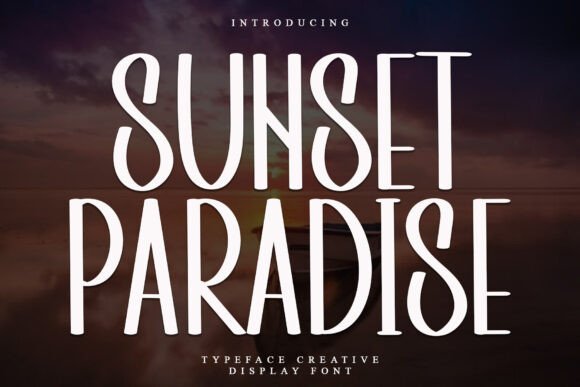
Introducing Sunset Paradise Font: The Ultimate Holiday Typeface
The holiday season is upon us, and what better way to get into the spirit than with a festive and happy typeface that captures the essence of this joyous time of year? Look no further than Sunset Paradise Font, a decorative and unique font that adds a touch of charm to your designs. In this article, we’ll dive into the world of Sunset Paradise Font and explore its features, benefits, and uses.
What is Sunset Paradise Font?
Sunset Paradise Font is a specially designed typeface that embodies the festive and happy atmosphere of the holiday season. With its decorative elements and unique flair, this font is perfect for adding a touch of nostalgia and cheer to your designs. Whether you’re creating greeting cards, gift labels, or holiday-themed projects, Sunset Paradise Font is the ideal choice.
Key Features of Sunset Paradise Font
- Decorative Elements: Sunset Paradise Font features intricate and decorative elements that give it a unique and festive look.
- Festive and Happy: The font’s design captures the spirit of the holiday season, making it perfect for creating cheerful and nostalgic designs.
- Unique Flair: Sunset Paradise Font has a distinct and stylish flair that sets it apart from other typefaces.
Benefits of Using Sunset Paradise Font
So, why choose Sunset Paradise Font for your holiday designs? Here are just a few benefits of using this amazing typeface:
Easy to Use
Versatile
This font is perfect for a wide range of holiday designs, from greeting cards and gift labels to holiday-themed projects and more.
High-Quality Design
Sunset Paradise Font is designed with high-quality and attention to detail, ensuring that your designs look professional and polished.
Uses for Sunset Paradise Font
So, what can you create with Sunset Paradise Font? Here are just a few ideas to get you started:
Greeting Cards
Create beautiful and festive greeting cards for the holiday season with Sunset Paradise Font. Add a personal touch to your cards with the font’s decorative elements and unique flair.
Gift Labels
Add a touch of charm to your gift labels with Sunset Paradise Font. Perfect for presents, gift tags, and more.
Holiday-Themed Projects
From holiday-themed social media graphics to festive website headers, Sunset Paradise Font is perfect for adding a touch of holiday cheer to your projects.
Tips for Using Sunset Paradise Font
Here are a few tips for getting the most out of Sunset Paradise Font:
Experiment with Different Sizes
Try out different font sizes to see how Sunset Paradise Font looks in various contexts.
Pair with Other Fonts
Experiment with pairing Sunset Paradise Font with other fonts to create a unique and stylish look.
Use with Holiday-Themed Graphics
Combine Sunset Paradise Font with holiday-themed graphics, such as snowflakes, holly, or Christmas trees, to create a festive and cohesive design.